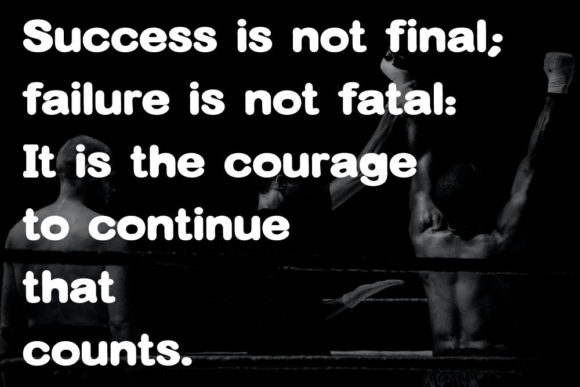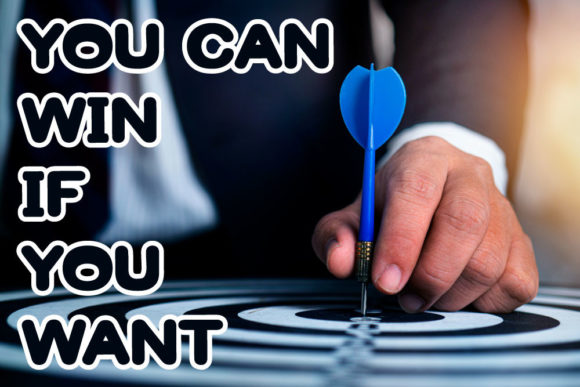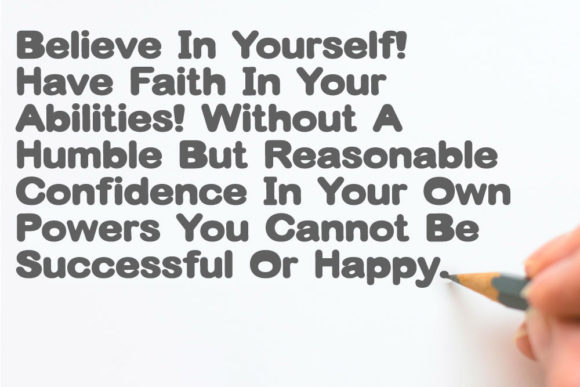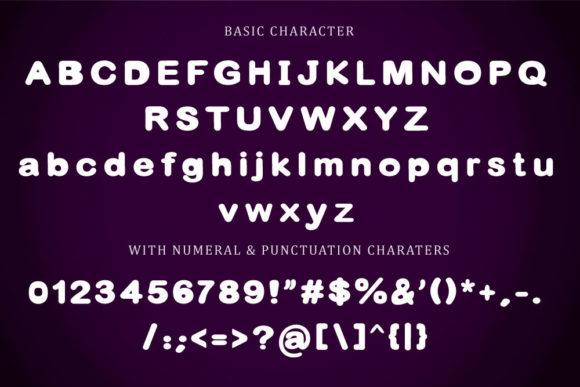
Unlock Your Creativity with Achieve It Font
There’s nothing quite like the thrill of a blank canvas, waiting to be transformed into something truly special. Whether you’re a seasoned designer or a crafting enthusiast, the moment you sit down to create is always filled with excitement and possibility.
That’s why we’re excited to introduce the Achieve It Font, a cool, fun and adaptable display font designed to elevate your crafting ideas and take them to the next level. From cards to branding, labels and beyond, this versatile font is the perfect addition to your creative toolkit. With its unique blend of style and functionality, the Achieve It Font is a valuable asset for designers looking to add a touch of personality to their projects.
Achieve It Font Key Features
- Font Family: Achieve It is a sans-serif font family designed for digital use.
- Font Size Range: Achieve It is designed to be highly legible at various font sizes, from 8pt to 48pt.
- Resolution: Achieve It is optimized for display at resolutions of 72 dpi and 96 dpi, making it suitable for digital use.
- Unique Characteristics: Achieve It features a clean, modern design with high x-height, making it easy to read on digital screens.
- Font Weight Variations: Achieve It is available in multiple font weights, including Light, Regular, Medium, Bold, and Heavy, allowing for a range of visual styles.
Designer Review: Achieve It Font
Overall, I was excited to dive into the Achieve It Font, but my experience was a bit mixed.
- Unique and modern aesthetic that can add a touch of sophistication to any design project.
- The font’s open and friendly feel makes it suitable for various applications, from branding to editorial content.
- Good legibility, making it easy to read even at smaller font sizes.
- Limited font styles and weights, which can limit its versatility in certain design scenarios.
- The font may not be as effective in situations where a more traditional or formal look is desired.
- Not as many language support options as some other fonts on the market.
Overall, I think Achieve It Font is a solid choice for modern designs, but it may not be the best fit for every project. With its unique look and good legibility, it’s definitely worth considering, but it’s essential to weigh its limitations before making a final decision.
Use the Achieve It font to create bold and eye-catching headings.
Combine the font with other bold fonts to create a visually appealing design.
Use the font in conjunction with images and graphics to create a dynamic and engaging design.
The Achieve It font is ideal for creating motivational posters, business cards, and other marketing materials
Alternatives to Achieve It Font for Designers
Montserrat is a sans-serif font designed by Julieta Ulanovsky. It’s a modern, geometric font suitable for digital interfaces and advertising materials. Montserrat is a great alternative to Achieve It Font when you need a clean, minimalist look for your designs.
Comparison: Montserrat has a more geometric feel compared to Achieve It Font, which is more rounded. Montserrat is also more versatile and suitable for a wider range of applications.
Open Sans is a popular sans-serif font designed by Steve Matteson. It’s a clean, neutral font suitable for digital interfaces, magazines, and books. Open Sans is a great alternative to Achieve It Font when you need a friendly, approachable look for your designs.
Comparison: Open Sans has a more neutral feel compared to Achieve It Font, which is more energetic. Open Sans is also more legible at small font sizes, making it a great choice for digital applications.
Lato is a sans-serif font designed by Łukasz Dziedzic. It’s a modern, elegant font suitable for digital interfaces, magazines, and books. Lato is a great alternative to Achieve It Font when you need a sophisticated, high-end look for your designs.